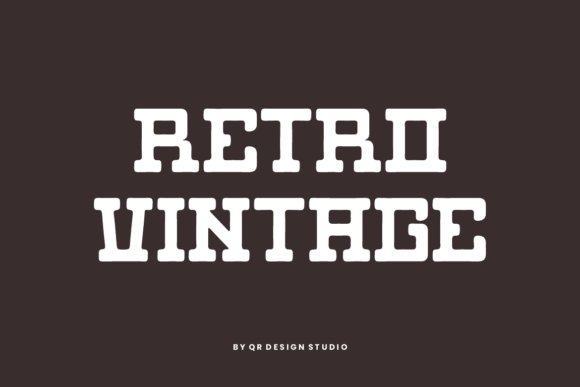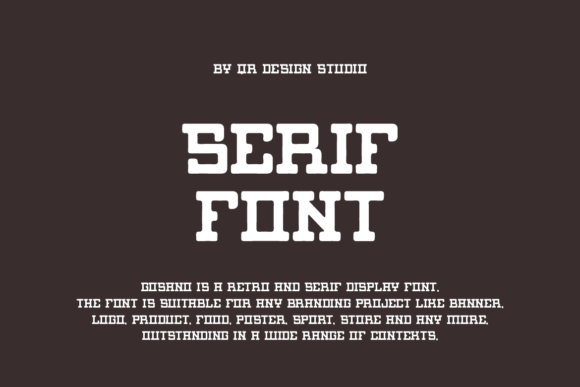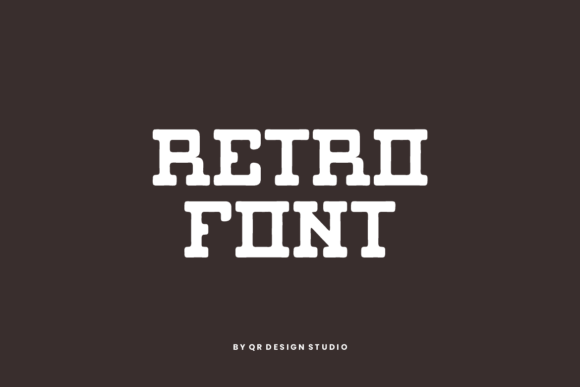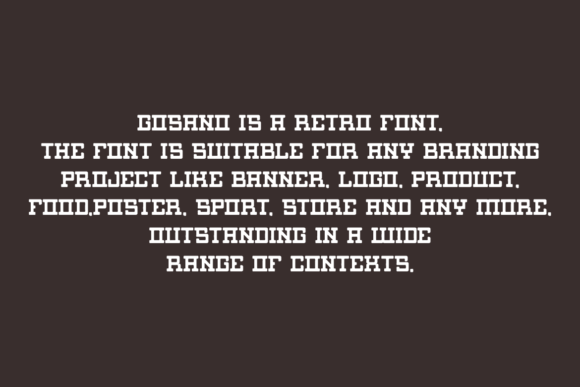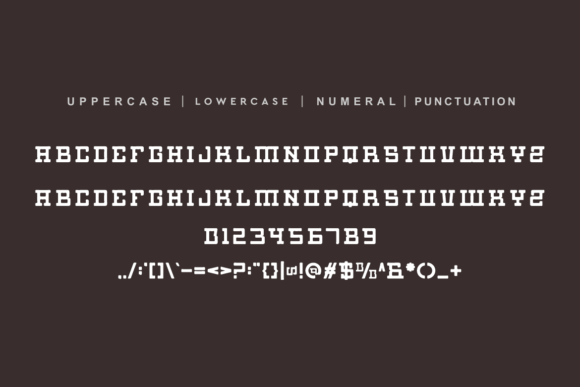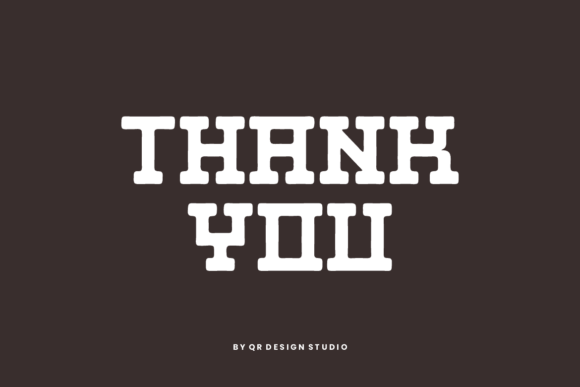
Gosano Font: The Ultimate Slab Serif Font for Creative Projects
Gosano is an incredibly unique slab serif font that has been masterfully designed to become a true favorite among designers and crafters. With its distinctive style, Gosano has the potential to bring each of your creative ideas to the highest level, making it an excellent choice for a wide range of projects.
What Makes Gosano Font So Special?
Gosano’s uniqueness lies in its slab serif design, which combines the classic elegance of serif fonts with the boldness of slab serifs. The font’s carefully crafted letters feature a perfect balance of curves and straight lines, making it both visually appealing and highly legible. Whether you’re working on a branding project, a website, or a print design, Gosano is sure to make a lasting impression.
Key Features of Gosano Font
- Unique Slab Serif Design: Gosano’s slab serif style sets it apart from other fonts, giving it a distinctive look that’s both modern and timeless.
- High Legibility: The font’s carefully designed letters ensure that your text is easy to read, even at small sizes.
- Versatility: Gosano is suitable for a wide range of projects, from branding and advertising to web design and print materials.
- Easy to Use: Gosano is a straightforward font to use, and its clear structure makes it simple to integrate into your designs.
How to Use Gosano Font in Your Designs
Gosano is an incredibly versatile font that can be used in a variety of design projects. Here are a few ideas to get you started:
- Branding and Logo Design: Use Gosano to create a bold and memorable logo that will help your brand stand out.
- Web Design: Gosano is perfect for web design, where its clean and legible design ensures that your content is easy to read on any device.
- Print Design: Gosano is ideal for print materials such as brochures, flyers, and posters, where its bold and eye-catching design is sure to grab attention.
Tips for Getting the Most Out of Gosano Font
To get the most out of Gosano, here are a few tips to keep in mind:
- Experiment with Font Sizes: Gosano looks great at a range of font sizes, so don’t be afraid to experiment to find the perfect size for your design.
- Play with Color: Gosano’s bold design makes it perfect for use with bright and bold colors, so don’t be afraid to get creative.
- Combine with Other Fonts: Gosano pairs well with a range of other fonts, so try combining it with other fonts to create a unique and eye-catching design.
Gosano is an incredibly unique slab serif font that has the potential to bring each of your creative ideas to the highest level. With its distinctive style, high legibility, and versatility, Gosano is an excellent choice for designers and crafters looking to create bold and eye-catching designs. Whether you’re working on a branding project, a website, or a print design, Gosano is sure to make a lasting impression.